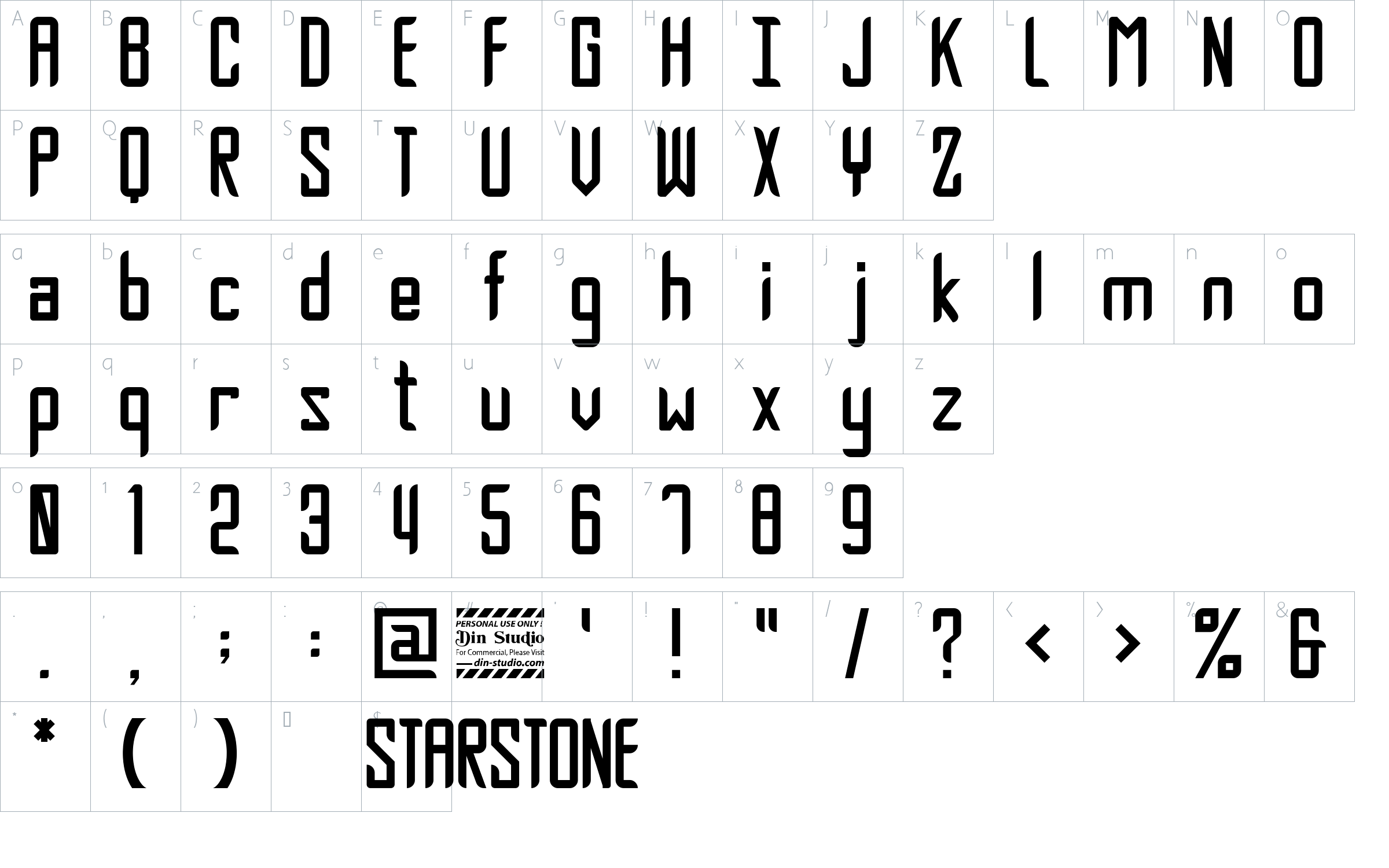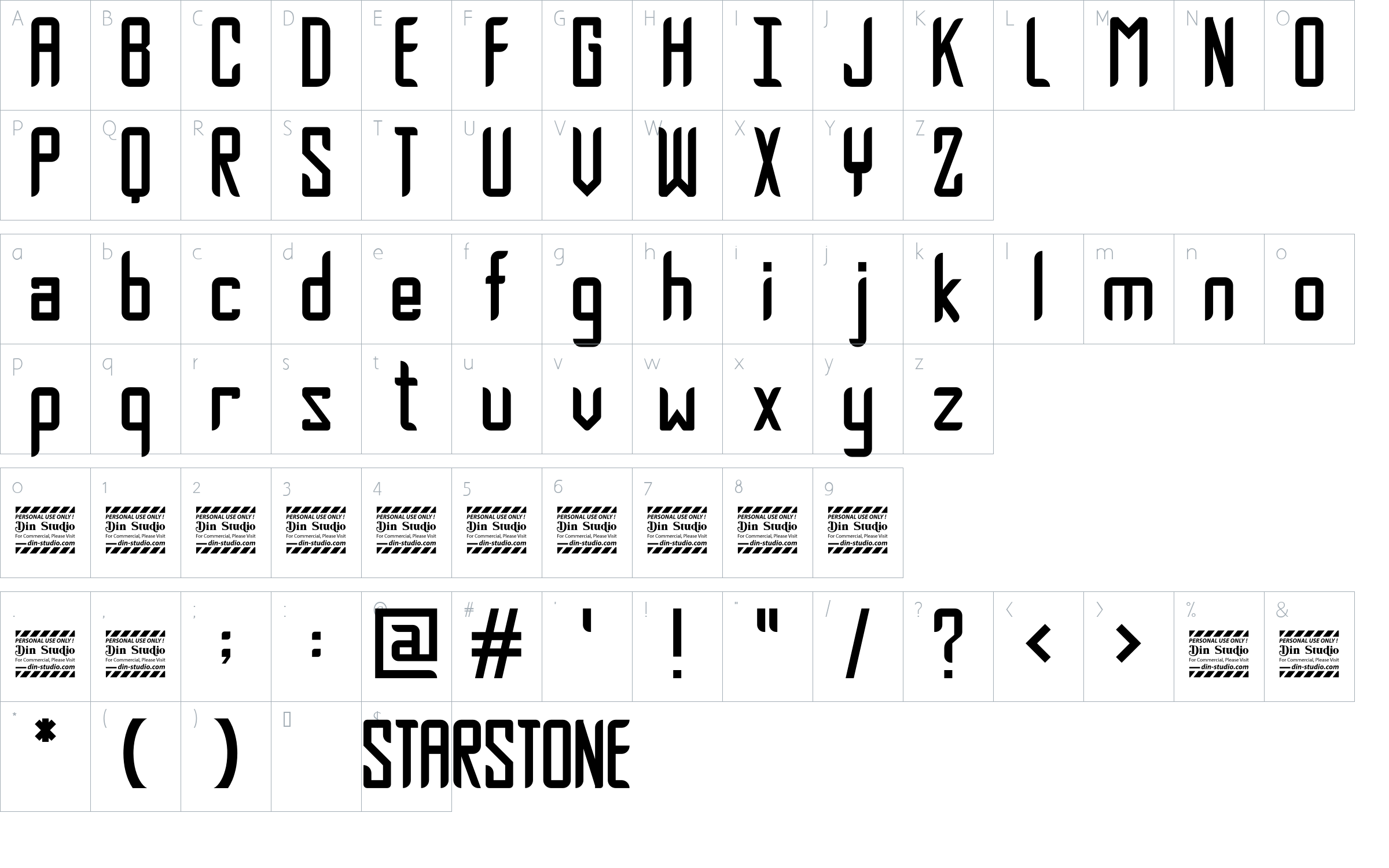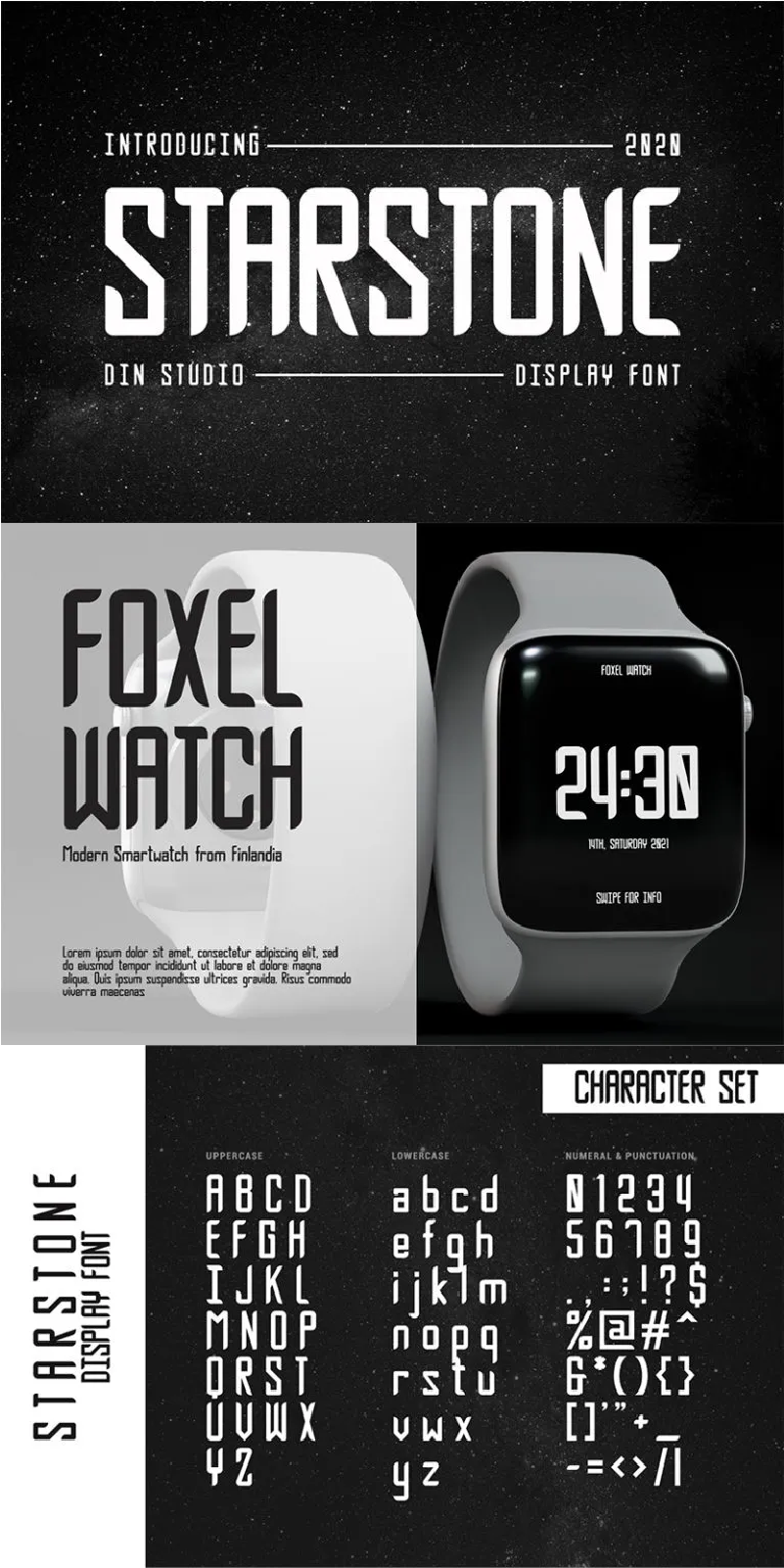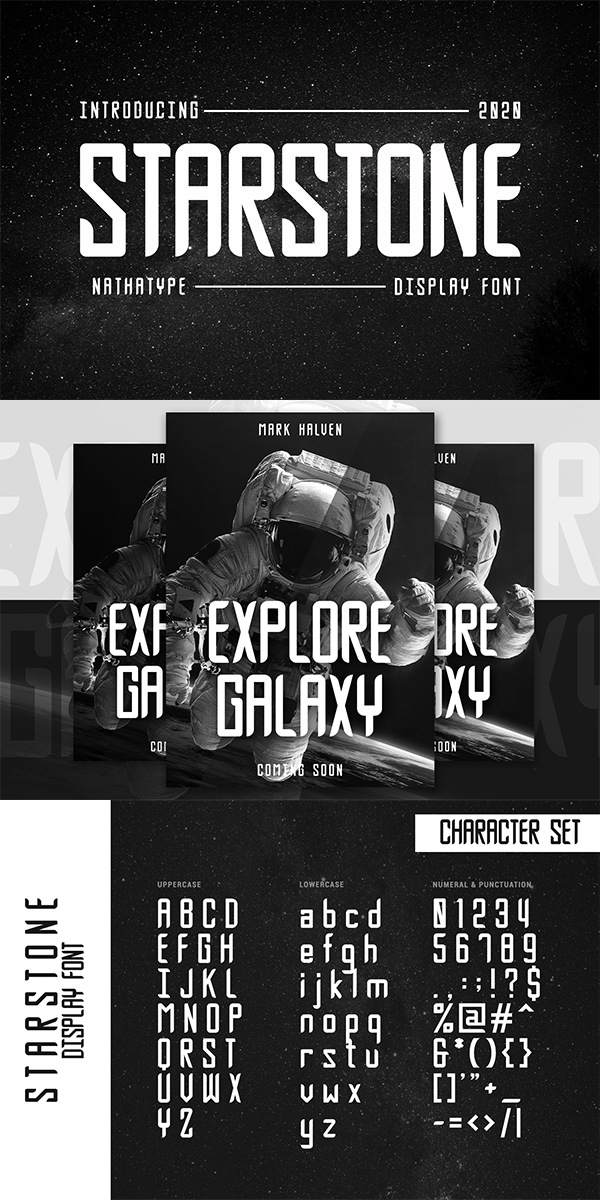
STARSTONE Font
About STARSTONE
Starstone – A Display Font
This typeface with modern style looks very interesting for loads of different projects and promotions. It is
perfect to be used on any projects likes website, for your social media branding, pinterest banners, printed
products, and more, especially that needs outers space touch. See the previews above to get some
• Multilingual Support
• Numerals and Punctuation